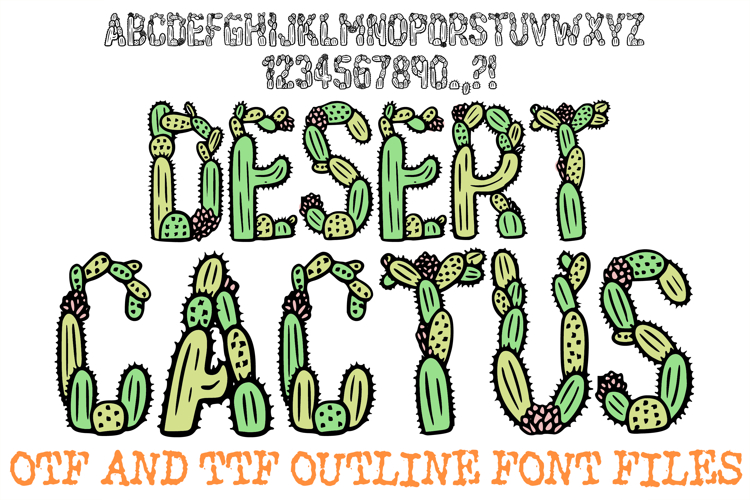
Desert Cactus Alphabet Lettering Font Prickly ABC OTF Type
Inject a playful, hand-crafted southwestern charm into your creative projects with the whimsical Desert Cactus Font. Inspired by the rugged beauty of desert flora, this unique display alphabet transforms characters into detailed, living succulents. Each letter and number is meticulously built from distinct ribbed stalks, textured prickly paddles, and tiny hand-drawn needles, with delicate desert blossoms nesting on characters like B, M, and S. Rendered in high-contrast black ink outlines, this font captures a wonderful doodle aesthetic that is both organic and highly graphic.
Provided as a high-resolution design asset, the crisp linework is exceptionally versatile for both digital and physical mediums. It serves as an excellent resource for designers looking to create standout themed merchandise, localized branding, children's book layouts, or festive summer event stationery.